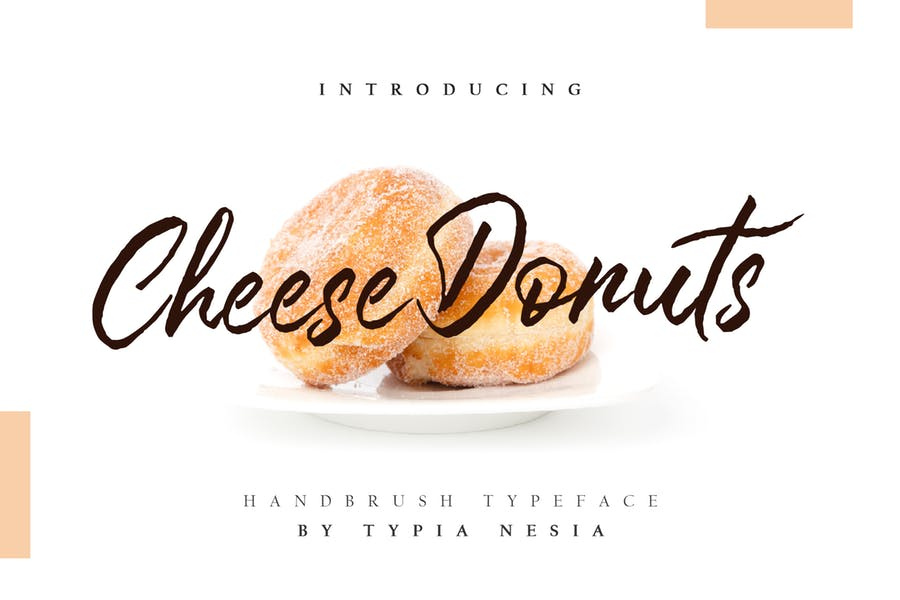
Cheese Donuts Brush Font
Cheese Donuts Brush Font is perfect for quirky food branding, playful bakery signage, fun restaurant menus, whimsical café communications, creative food packaging, cheerful street food marketing, delightful dessert promotions, and appetizing advertising campaigns. This delicious typeface works wonderfully in both digital applications and print media where food fun and culinary playfulness are essential design elements.
What makes Cheese Donuts Brush Font so exciting is its irresistible combination of comfort food charm and artistic brush strokes through textured letterforms that seem painted with the same creative energy used to craft artisanal treats and comfort food favorites. The font features appetizing characters with bakery proportions, brush-painted textures, and delicious details that evoke the warm atmosphere of neighborhood bakeries and the playful creativity of food artisans. Its tasty personality and culinary inspiration make it ideal for brands seeking to communicate food fun, artisanal quality, and the joyful indulgence of comfort food while maintaining excellent readability across all food marketing applications.
The Cheese Donuts Brush Font family includes multiple stylistic variations with different brush intensities, along with textured alternates and food-inspired ornamental elements. Each style maintains the typeface's delicious character while offering comprehensive character sets including appetizing numerals, food-focused punctuation marks, and special symbols designed to enhance culinary communications and playful food branding efforts across various tasty contexts.
This remarkable typeface represents the perfect fusion of artistic creativity and food service functionality for culinary and hospitality industries. Whether you're developing bakery brand identities, creating food truck materials, or designing dessert shop promotions, Cheese Donuts Brush Font Free Download delivers the culinary playfulness and versatility needed to attract food-loving customers. The font's comfort food heritage makes it particularly effective for bakeries, casual restaurants, food trucks, and businesses celebrating the joy and indulgence of delicious comfort food experiences.
The carefully crafted brush textures and optimized culinary performance in Cheese Donuts Brush Font ensure both artistic authenticity and clear communication across all food applications. Its appetizing presence makes it perfect for food branding, culinary marketing materials, and gastronomic communications where its full brush-painted character can create mouth-watering connections with audiences who appreciate creative food presentation and the irresistible charm of artisanal comfort foods.